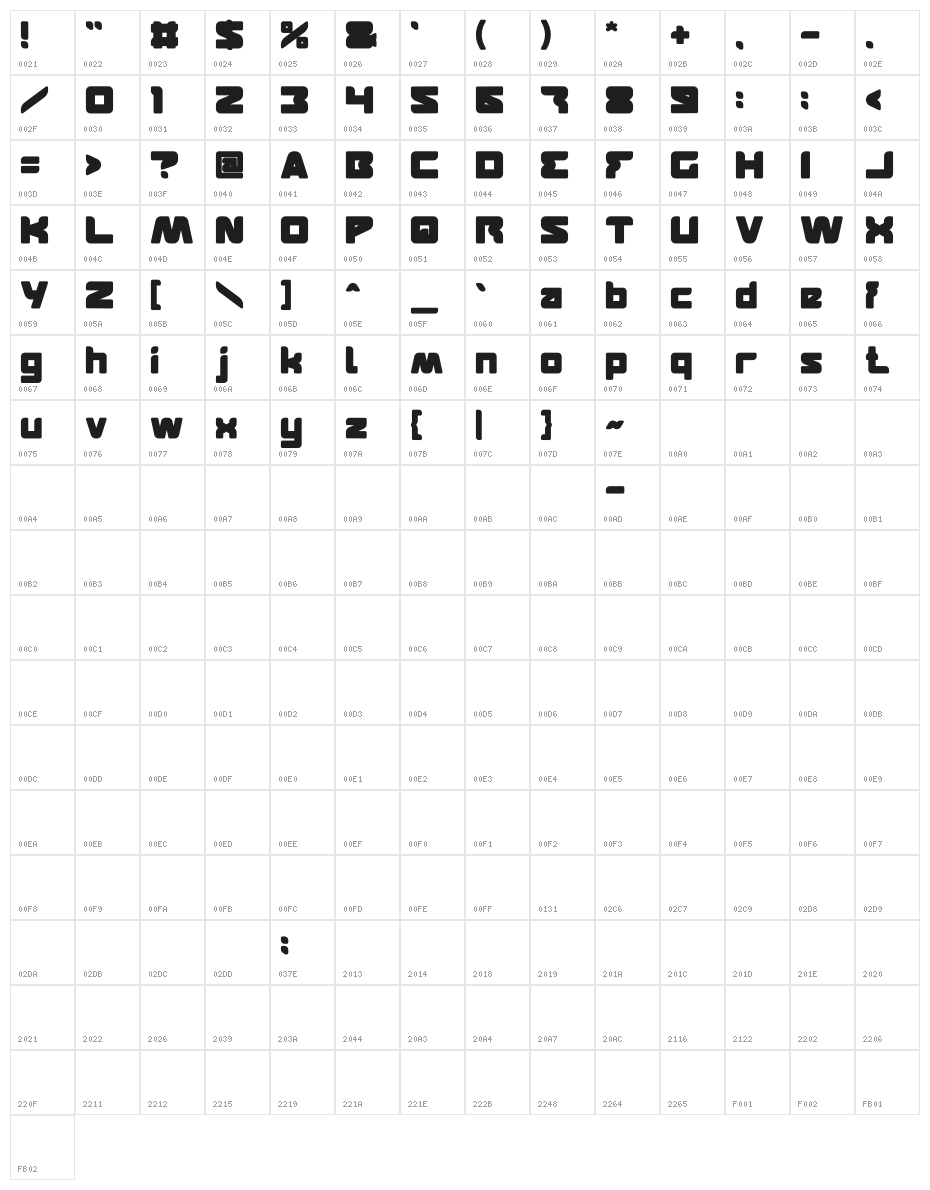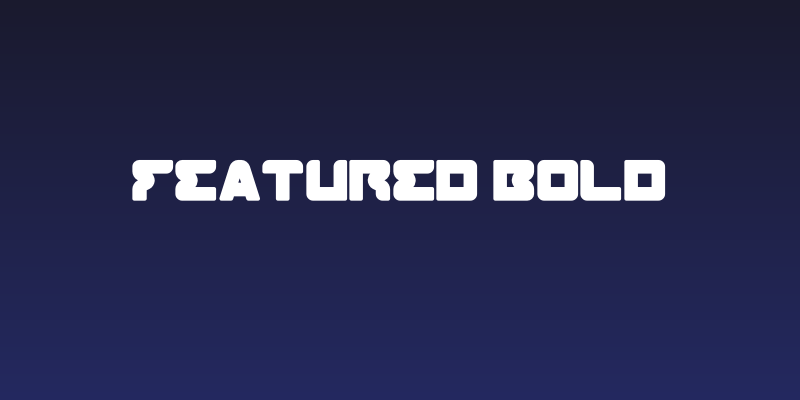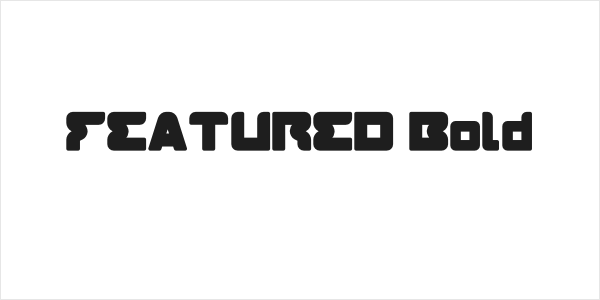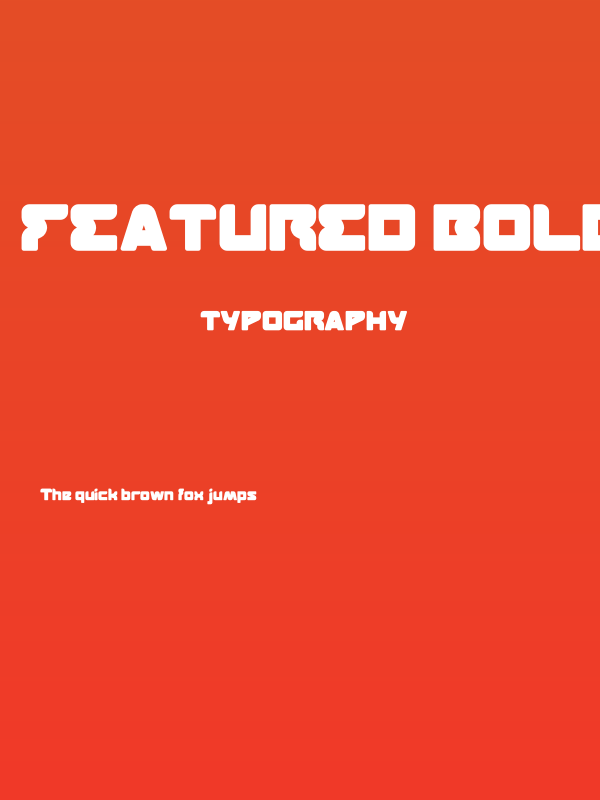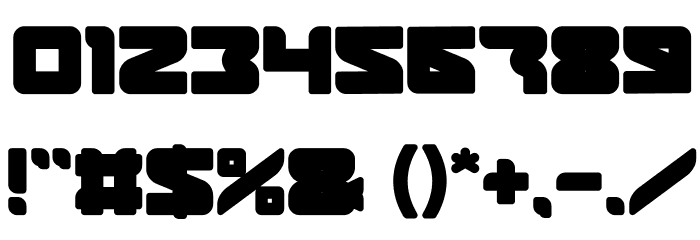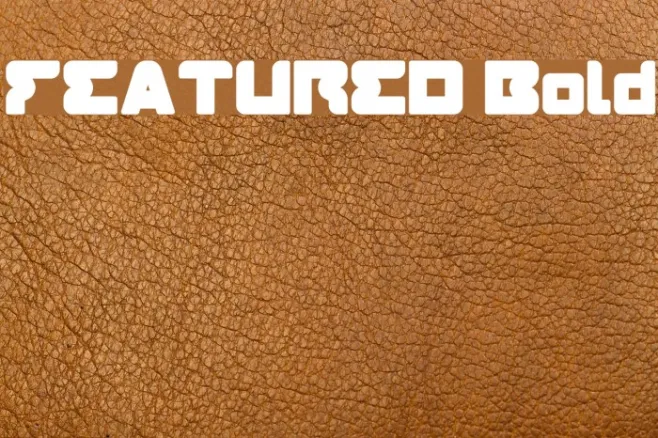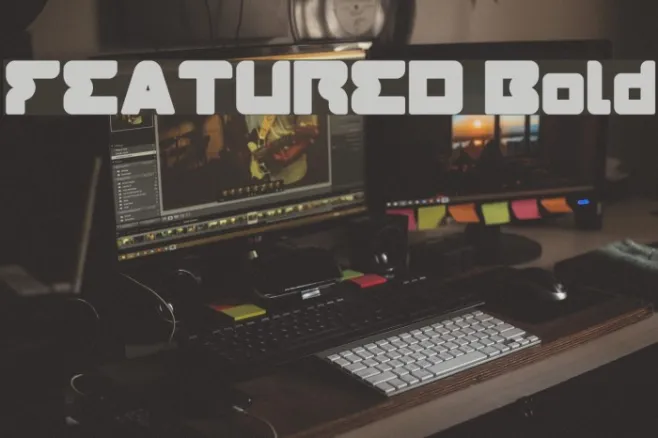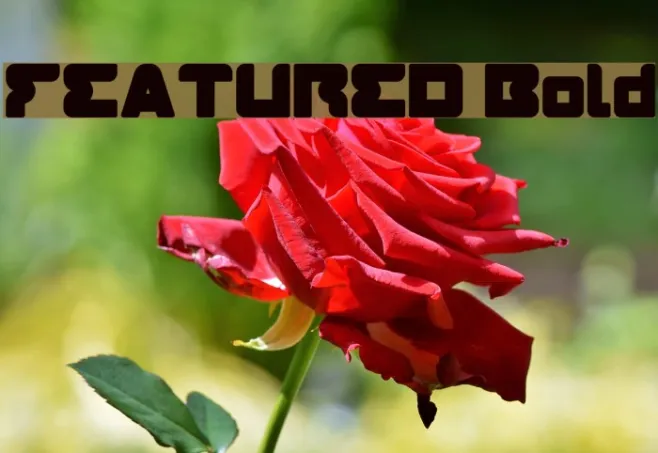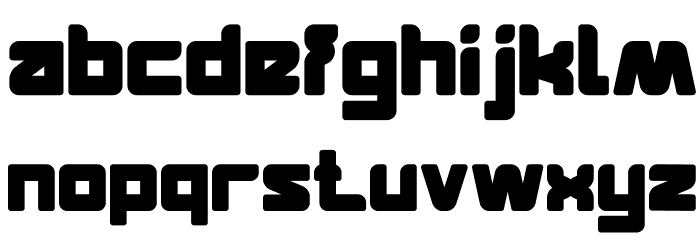
FEATURED Bold Font
FEATURED Bold Description
This font features a bold and robust design with thick, blocky characters that convey a strong presence. The uppercase and lowercase letters maintain a consistent weight, creating a uniform appearance. The rounded edges soften the otherwise solid structure, adding a touch of approachability. The numerals and special characters follow the same bold style, ensuring cohesion across all elements. This font is highly legible and stands out due to its substantial weight and distinctive style.
| Proposed Projects | Ideal for headlines, posters, branding, and any project requiring a bold statement. |